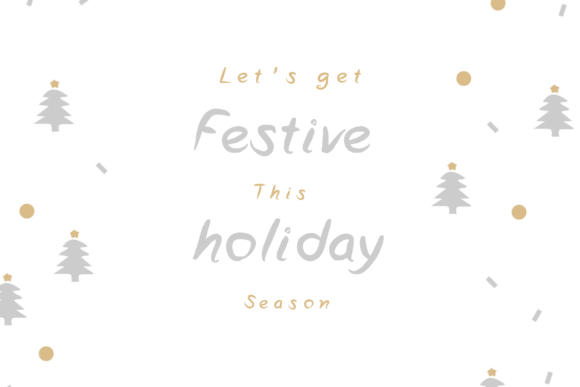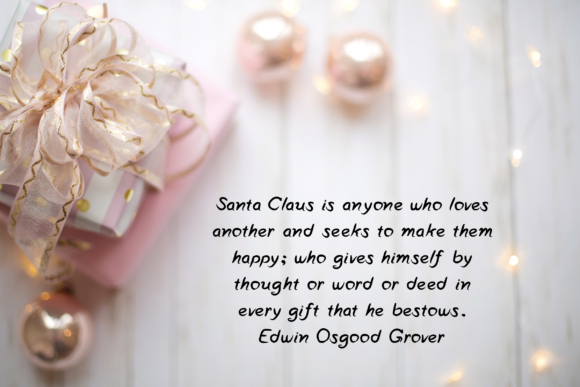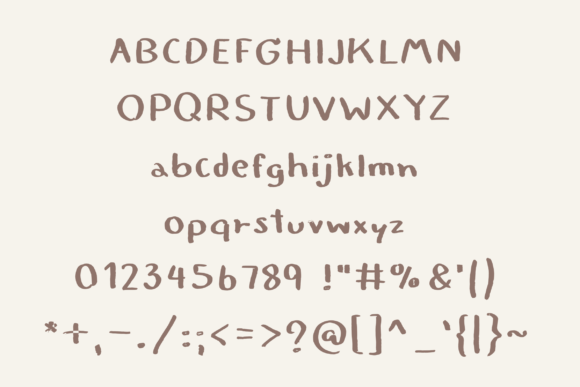
The Sweet Spot: Discovering the Charm of Gracelyn Font
I still remember the frustration of working on a branding project for a client’s boutique shop. I had nailed the color palette and overall aesthetic, but the font I chose just wasn’t cooperating. It was either too bold, too bland, or just plain boring. That’s when I stumbled upon Gracelyn Font, and it was love at first sight! 💕 This sweet, whimsical, and delicate script font instantly elevated my design, and I knew I had found the perfect match.
What I Love About Gracelyn Font
- ✨ Stylish alternates and ligatures that add a touch of elegance to any project
- ✅ Delicate and whimsical feel that’s perfect for feminine or vintage-inspired designs
- 🎉 Highly legible, even at smaller font sizes
- 👍 Extensive language support, making it a great choice for global projects
While Gracelyn Font is an amazing addition to any design arsenal, there are a few things to keep in mind:
- ⚠️ Some users might find the font a tad too delicate for very bold or edgy designs
- 🤔 Limited availability of condensed or italic versions, which might limit its use in certain contexts
The Story Behind Gracelyn Font
While the exact backstory of Gracelyn Font is unclear, it’s easy to imagine that it was designed with love and care. Perhaps the designer, inspired by vintage typography and elegant calligraphy, set out to create a font that would bring a touch of sweetness to any design. Whatever the inspiration, Gracelyn Font has undoubtedly captured the hearts of designers and crafters alike.
| Font Name | Gracelyn Font |
| Author | Sawanarod |
Q: What makes Gracelyn Font so special?
A: Gracelyn Font’s unique blend of delicacy, whimsy, and elegance, combined with its extensive language support and OpenType features, make it a standout choice for designers.
Q: Is Gracelyn Font suitable for body text?
A: While Gracelyn Font is highly legible, its delicate nature makes it better suited for headings, titles, or short paragraphs. For longer body text, a more robust font might be a better choice.